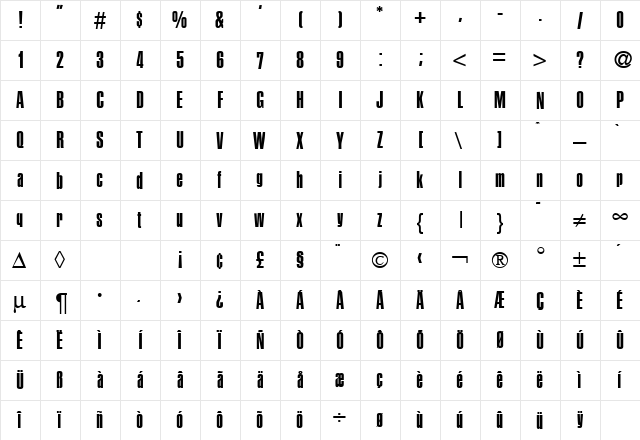
Persistent DB Regular
Design Context for Persistent DB Typeface
Persistent DB offers clean, dependable letterforms without strong stylistic allegiance, making it a practical choice for designers who need flexibility.